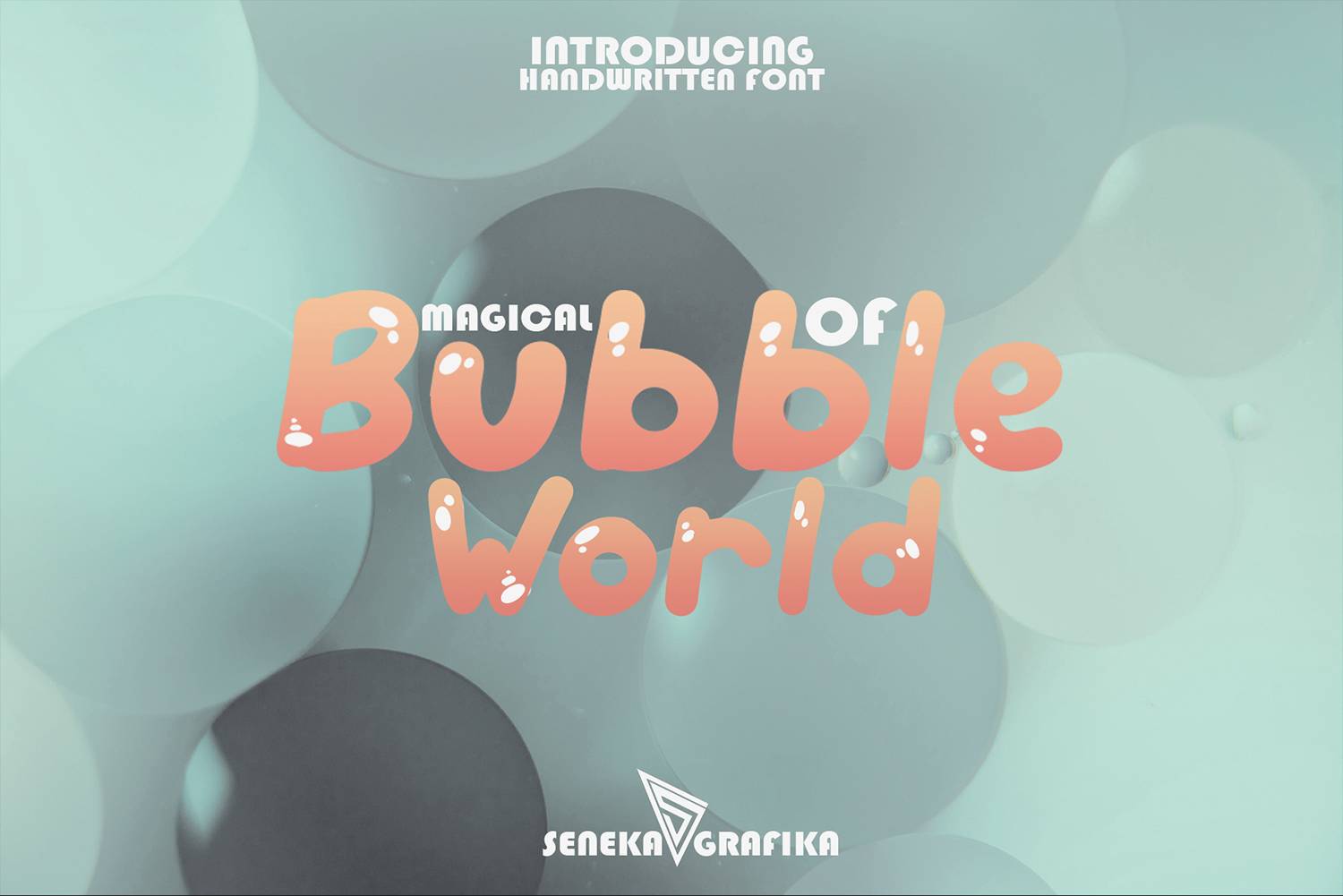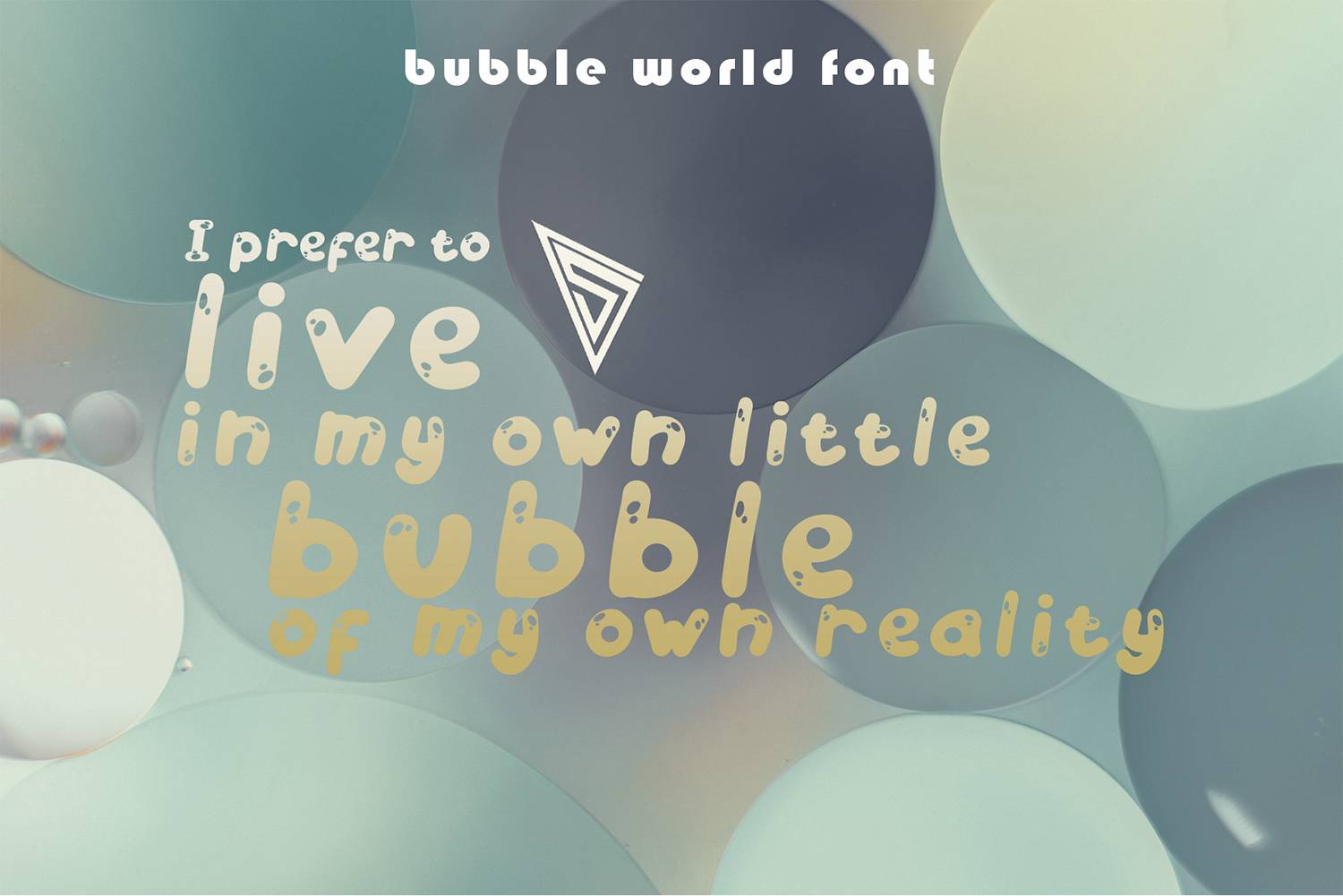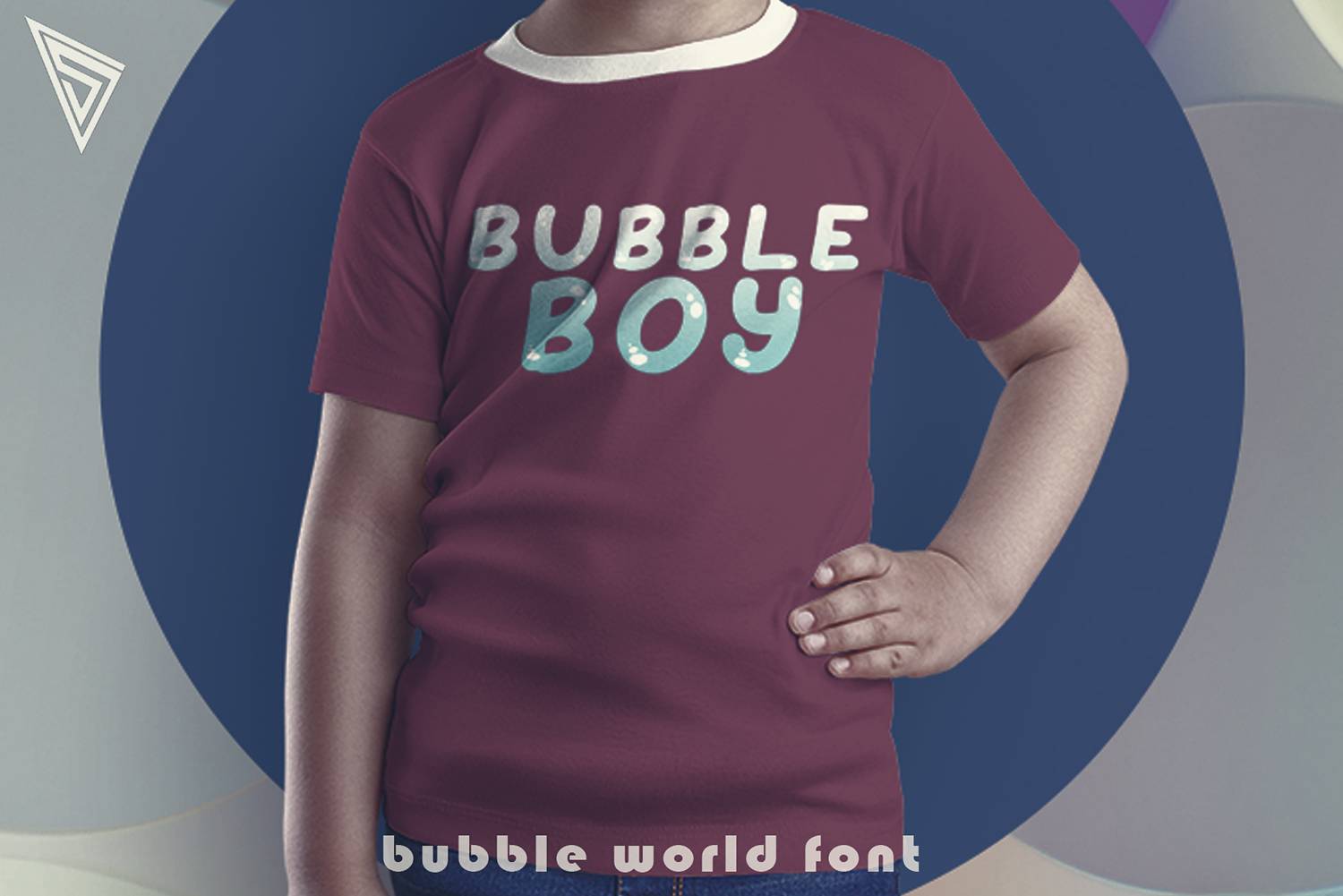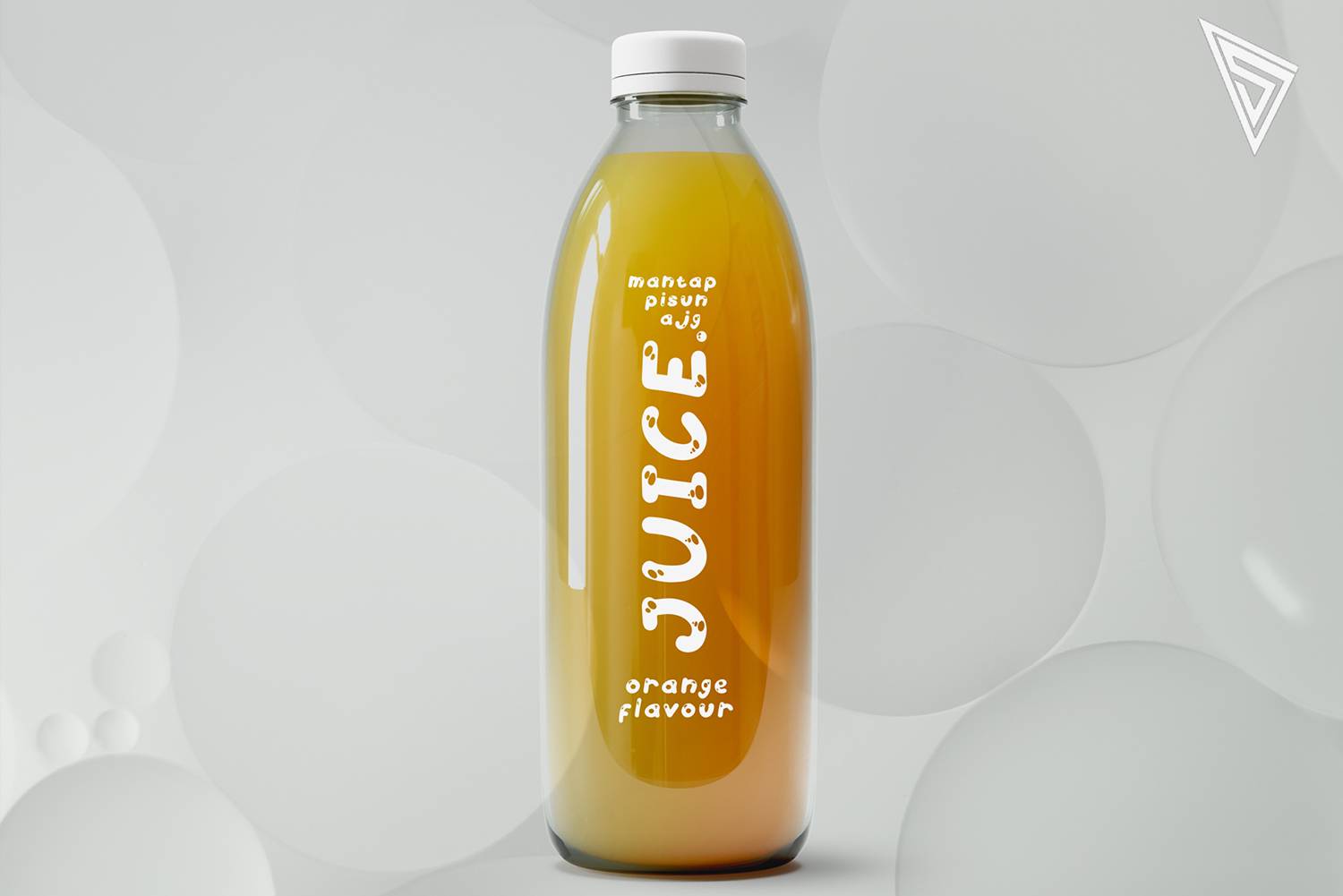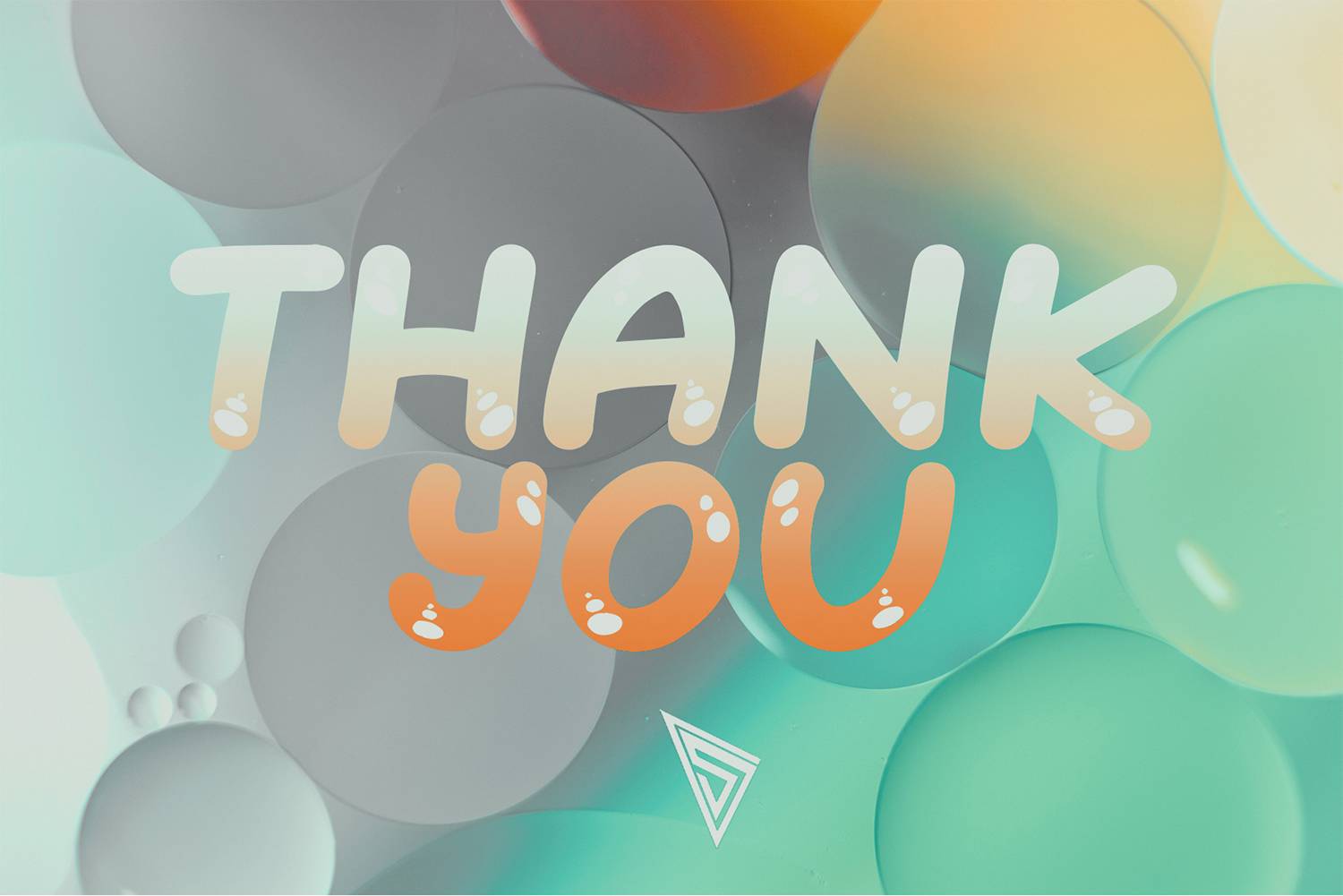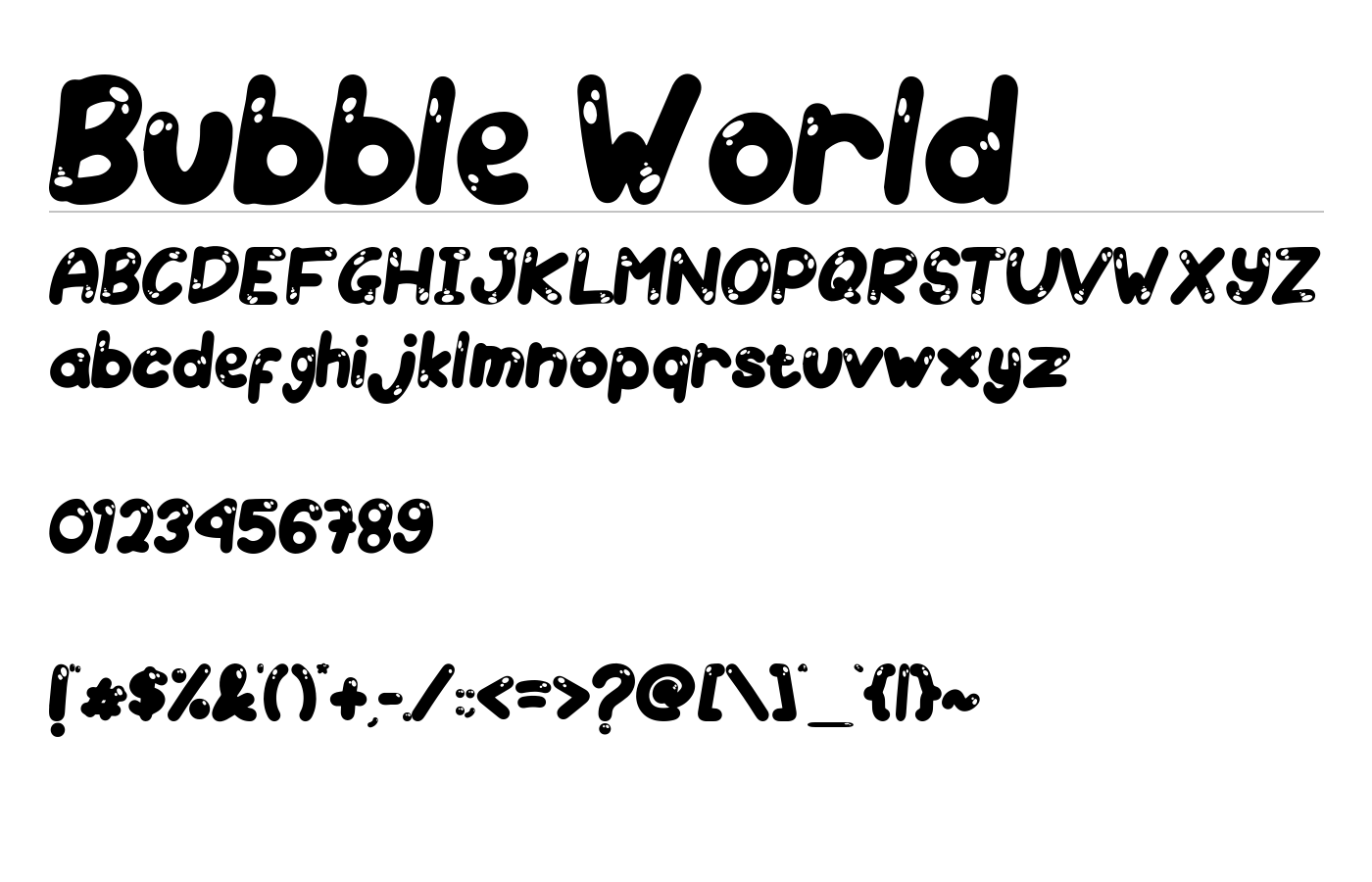
Bubble World is a playful, bold sans serif font with a bubbly, rounded style that features whimsical circular highlights resembling bubbles. Its wide, soft shapes and moderate x-height give it a fun and approachable personality, making it ideal for children's designs, posters, and branding that seeks a lively, informal vibe. This font works best where a cheerful, eye-catching impact is needed, especially in casual and creative contexts.
Bubble World Font
About Bubble World Font
| Designer | Fikri Irvansyah Putra Komara |
| Trademark | Seneka Grafika |